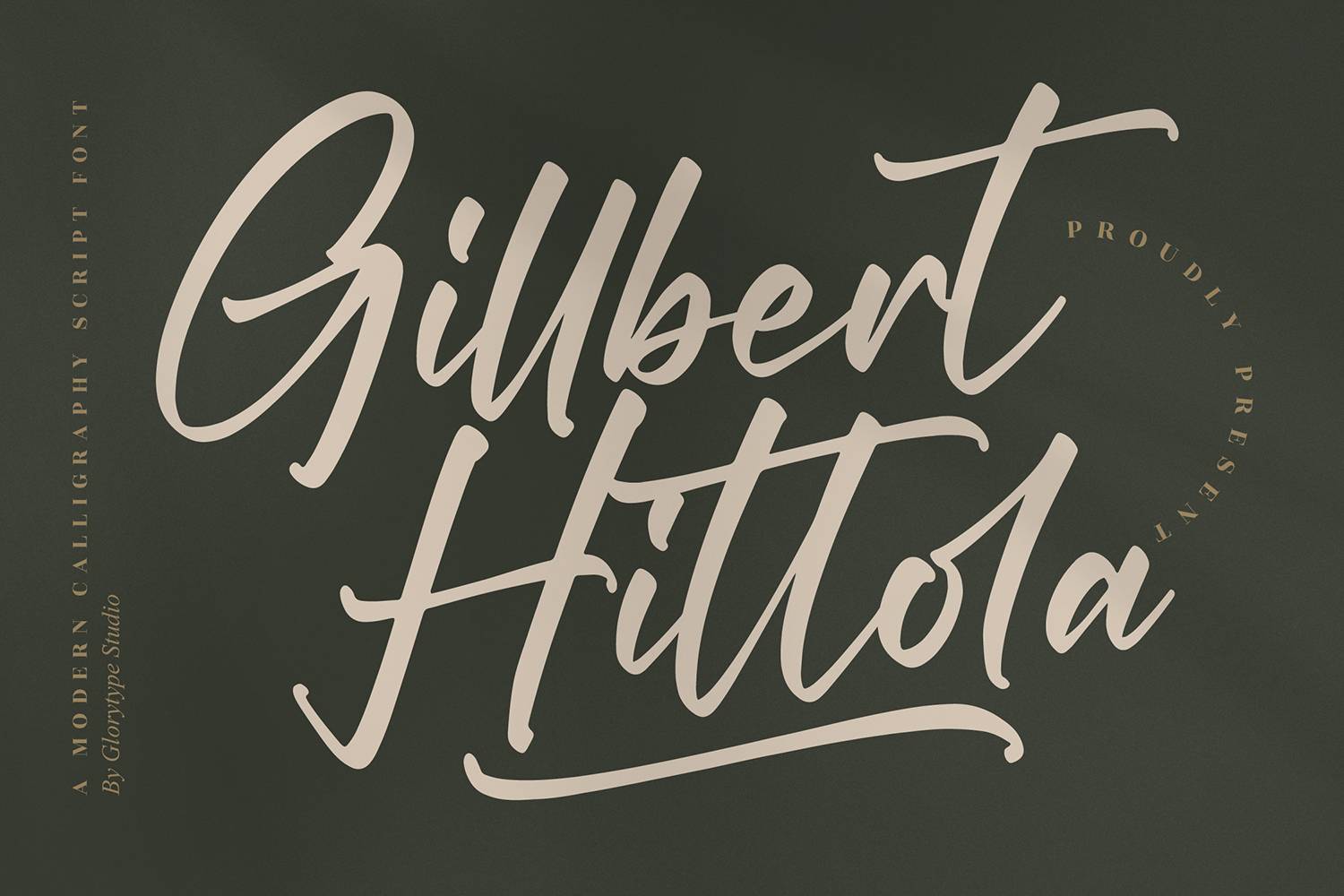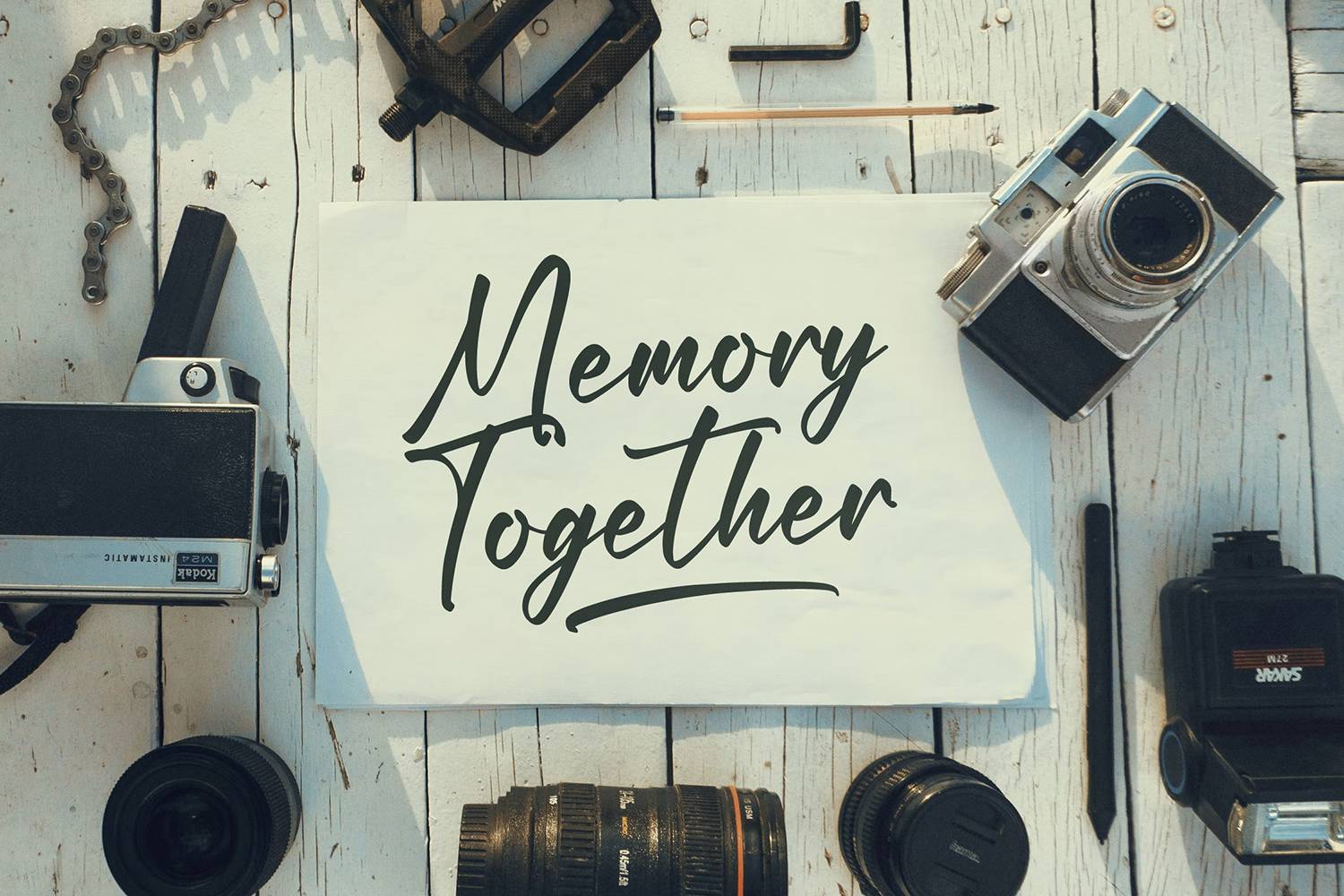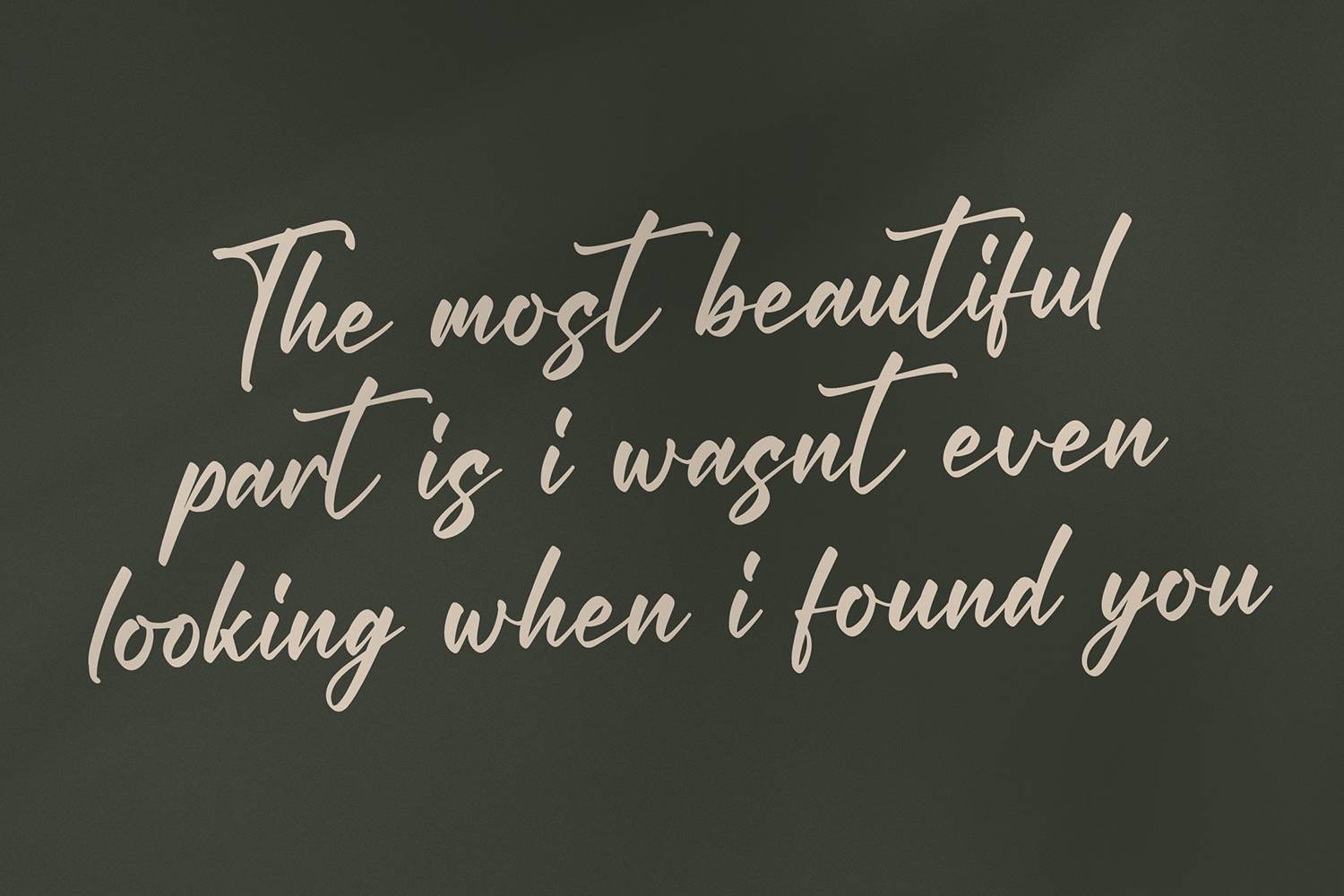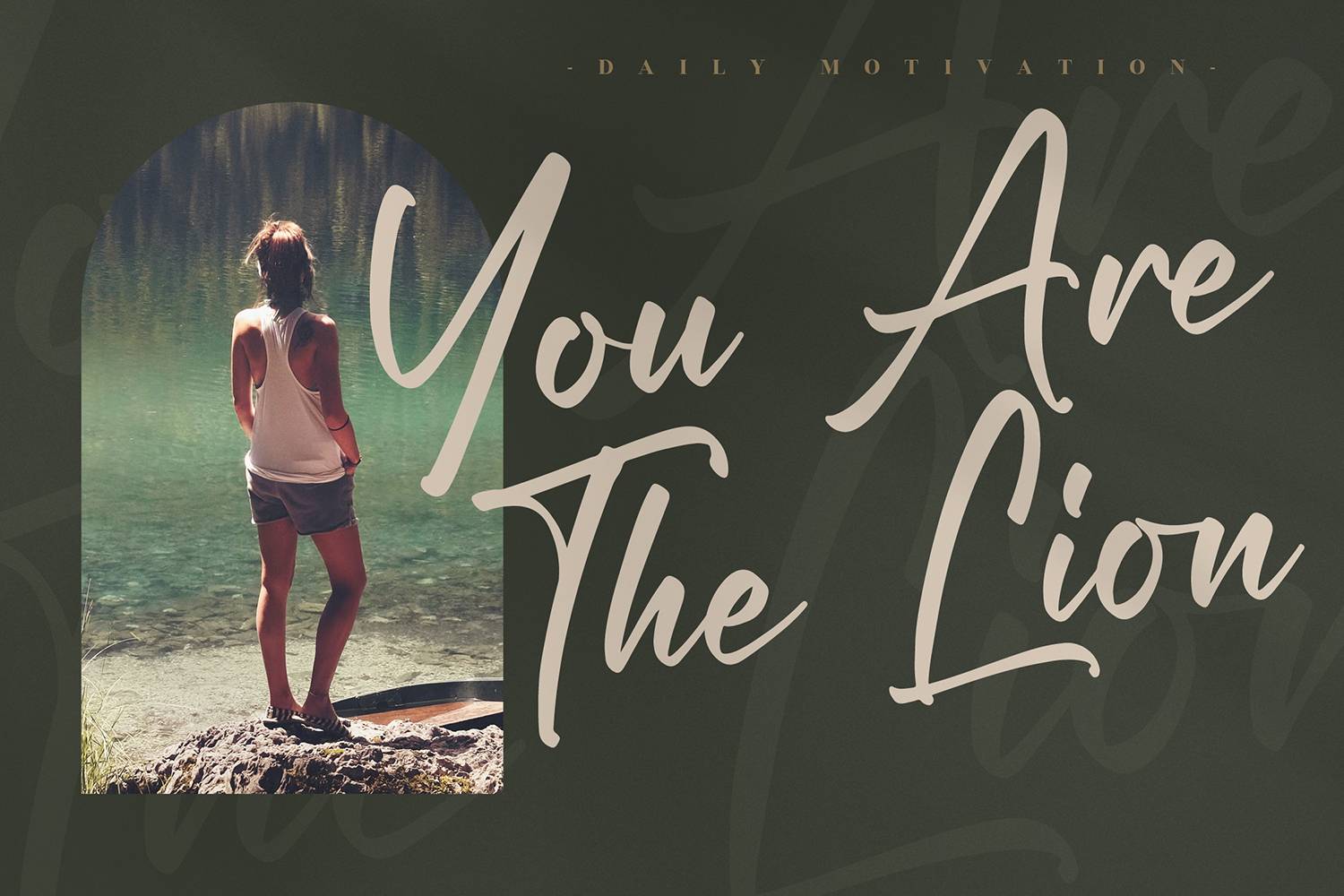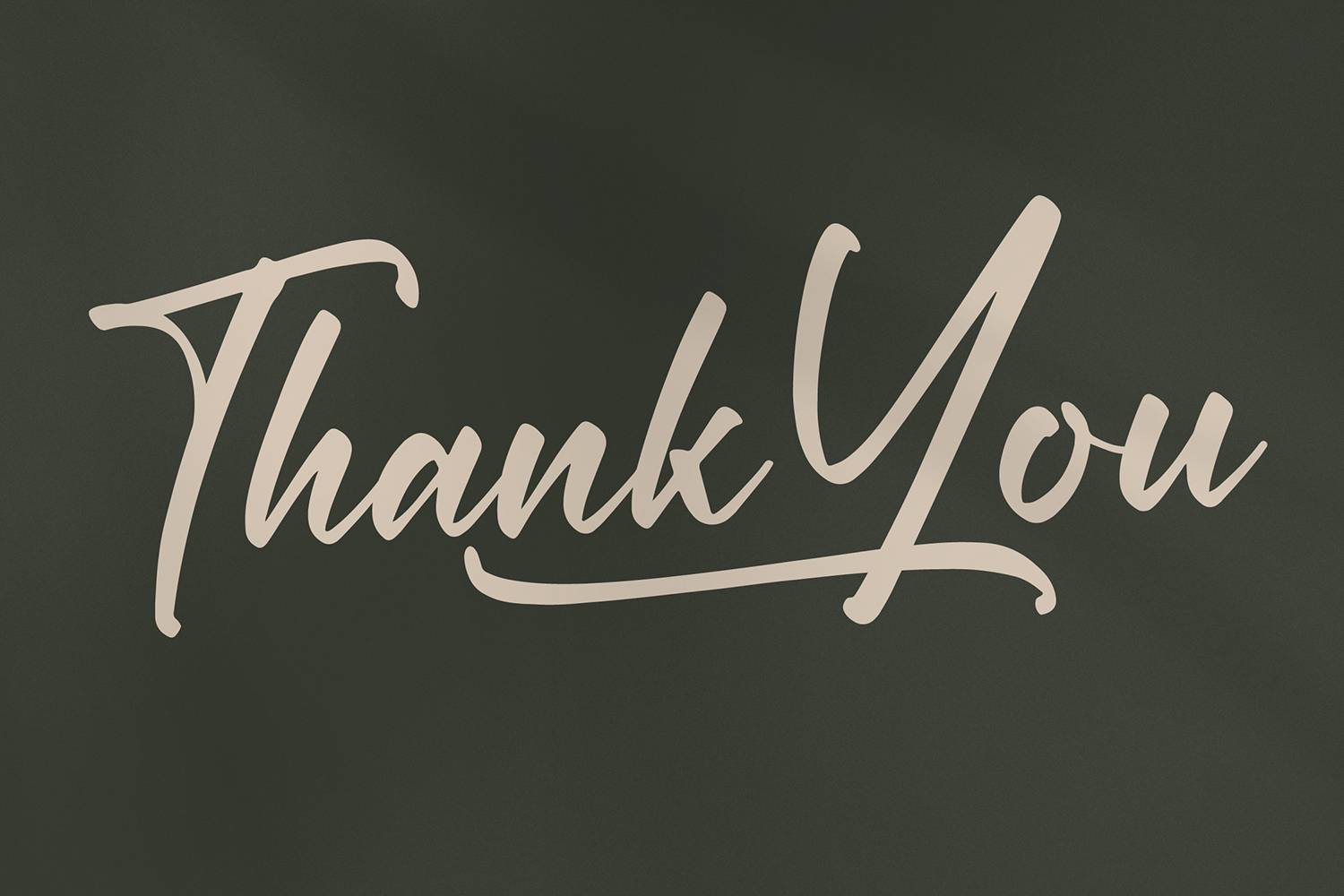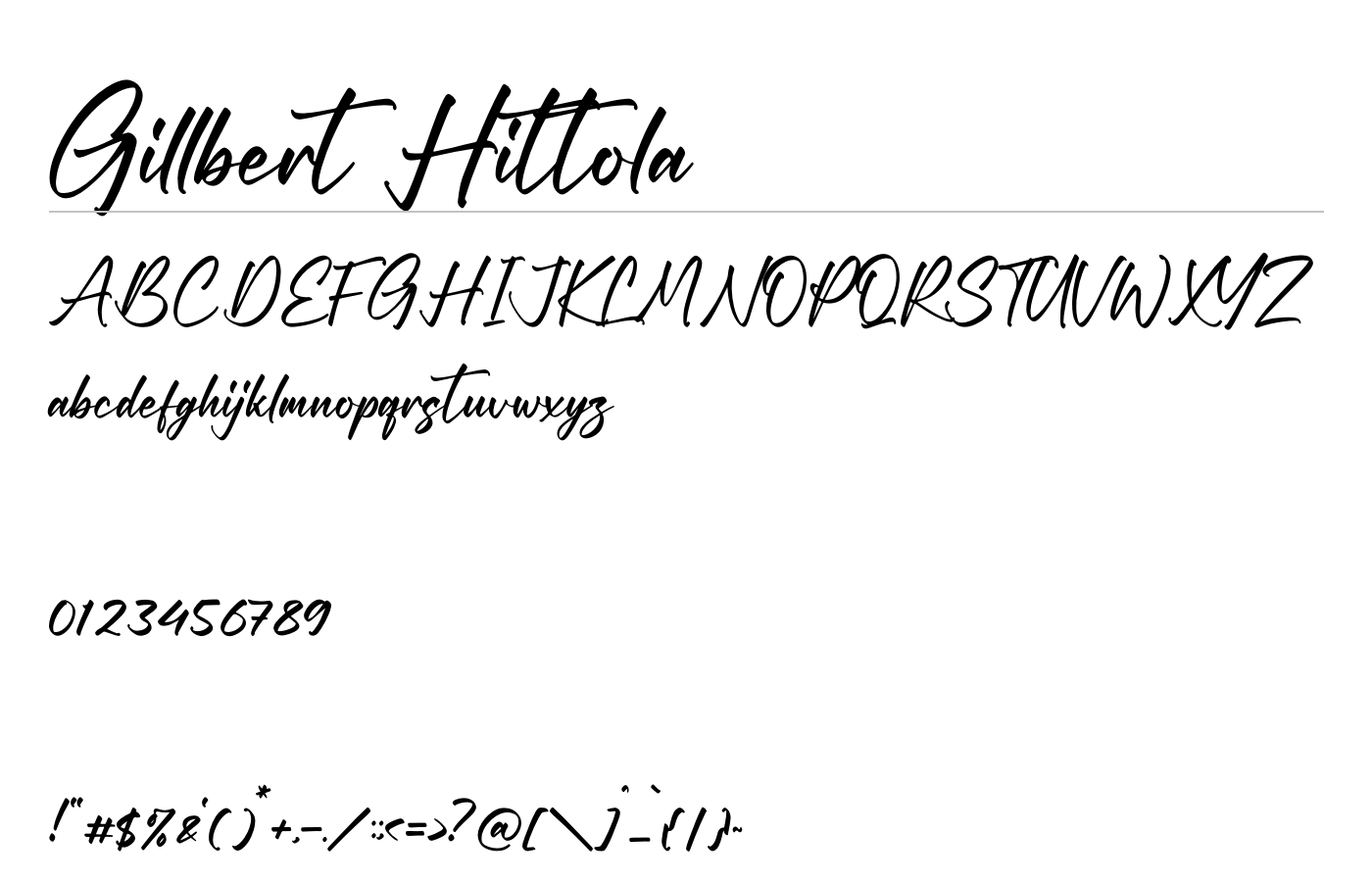
Gillbert Hittola is an elegant and lively script font with a natural, handwritten feel. Its smooth, flowing strokes and moderate contrast give it a casual yet refined appearance, making it perfect for personal branding, invitations, and stylish editorial designs. This font works wonderfully where a touch of warmth and personality is desired, adding an artistic flair without sacrificing readability.
Gillbert Hittola Font